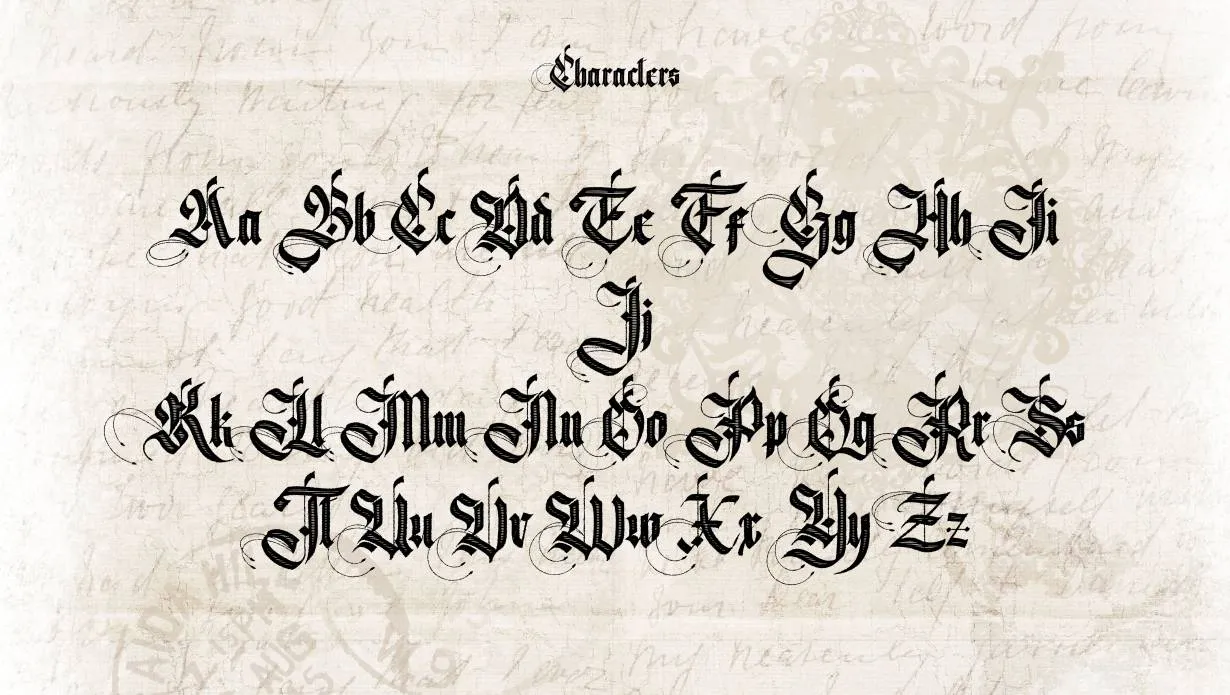
Magnific Caos Font belongs to the Gothic font family. The characters of this font are bold and have cursive edges. The characters of this typeface are highly readable perfect for short text.
You can also pair this typeface with tripleta font to make your project look unique. The highly legible characters of this typeface are perfect for both print and digital projects.
| Name | Magnific Caos Font |
| Designer | Billy Argel Fonts |
| Style | Gothic |